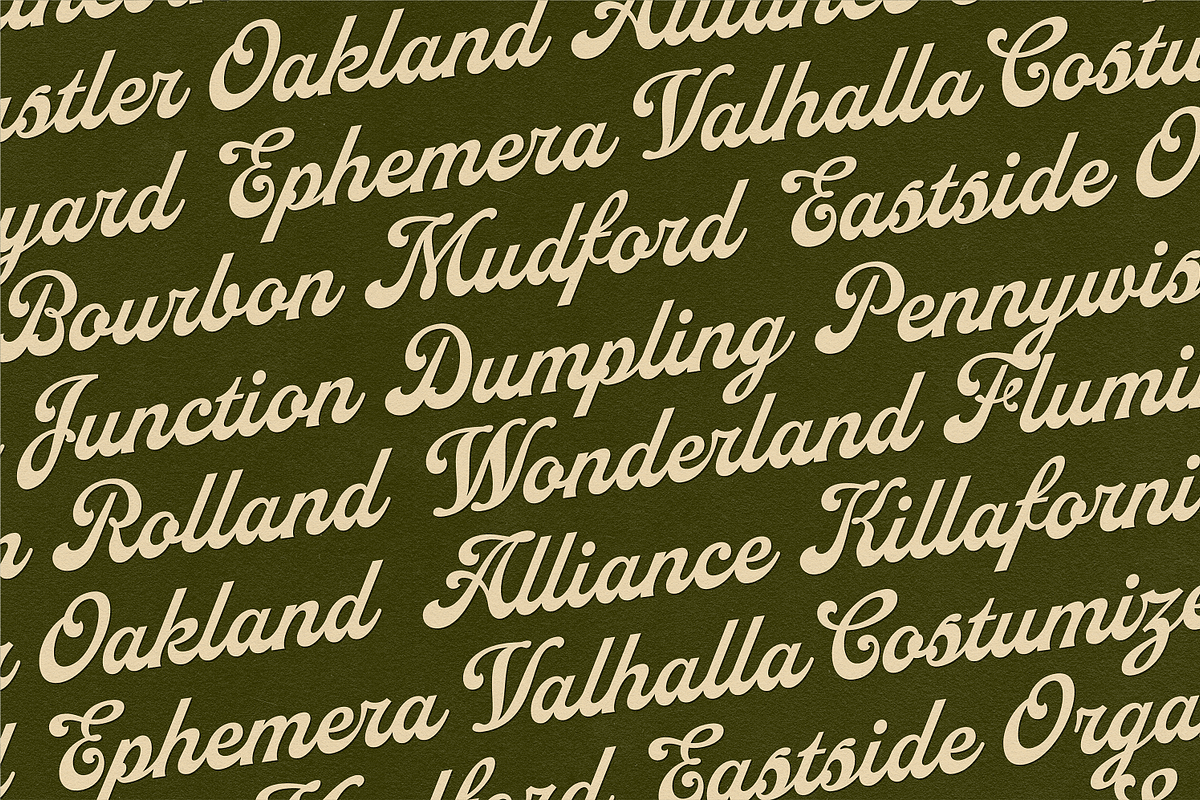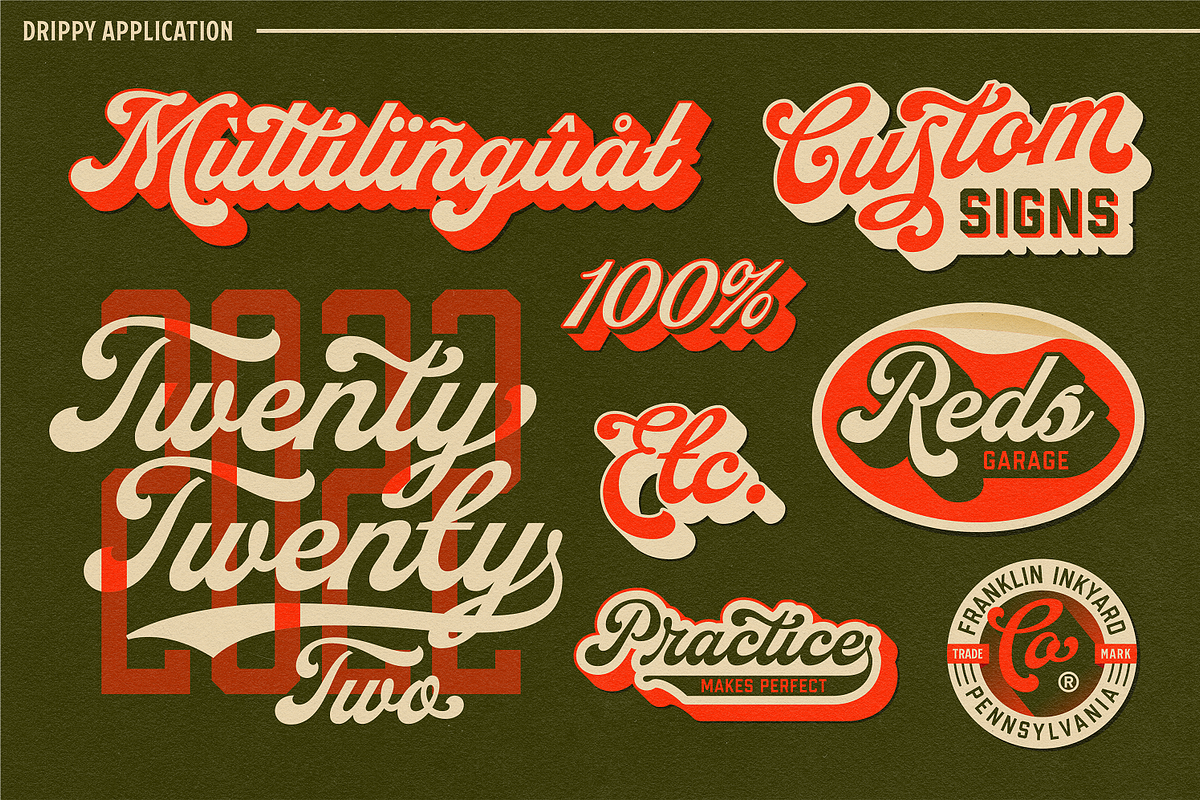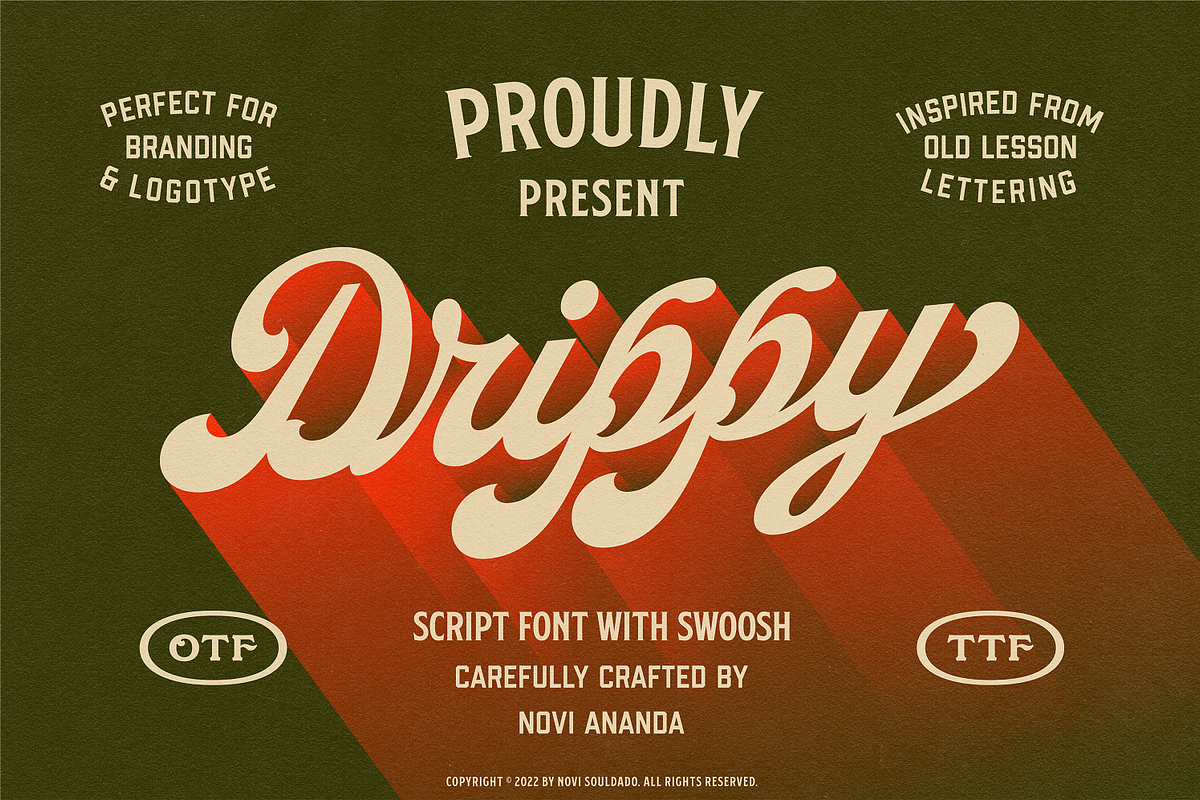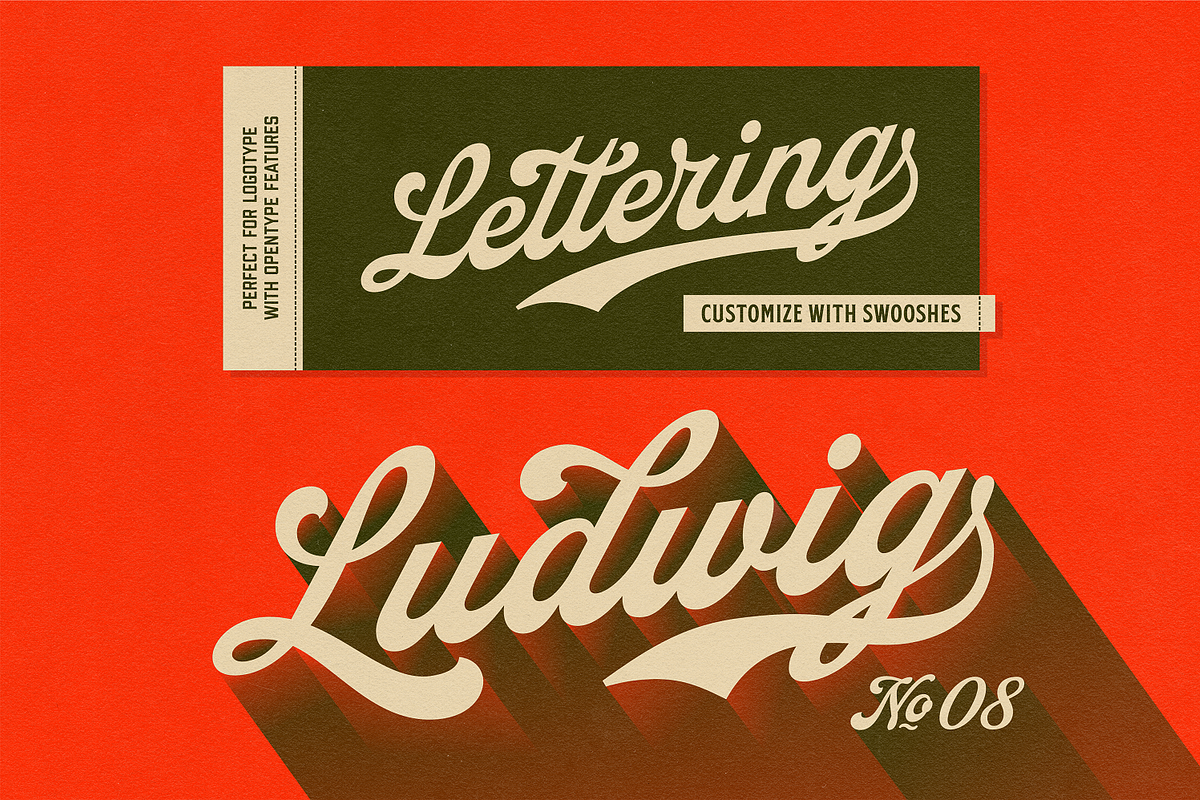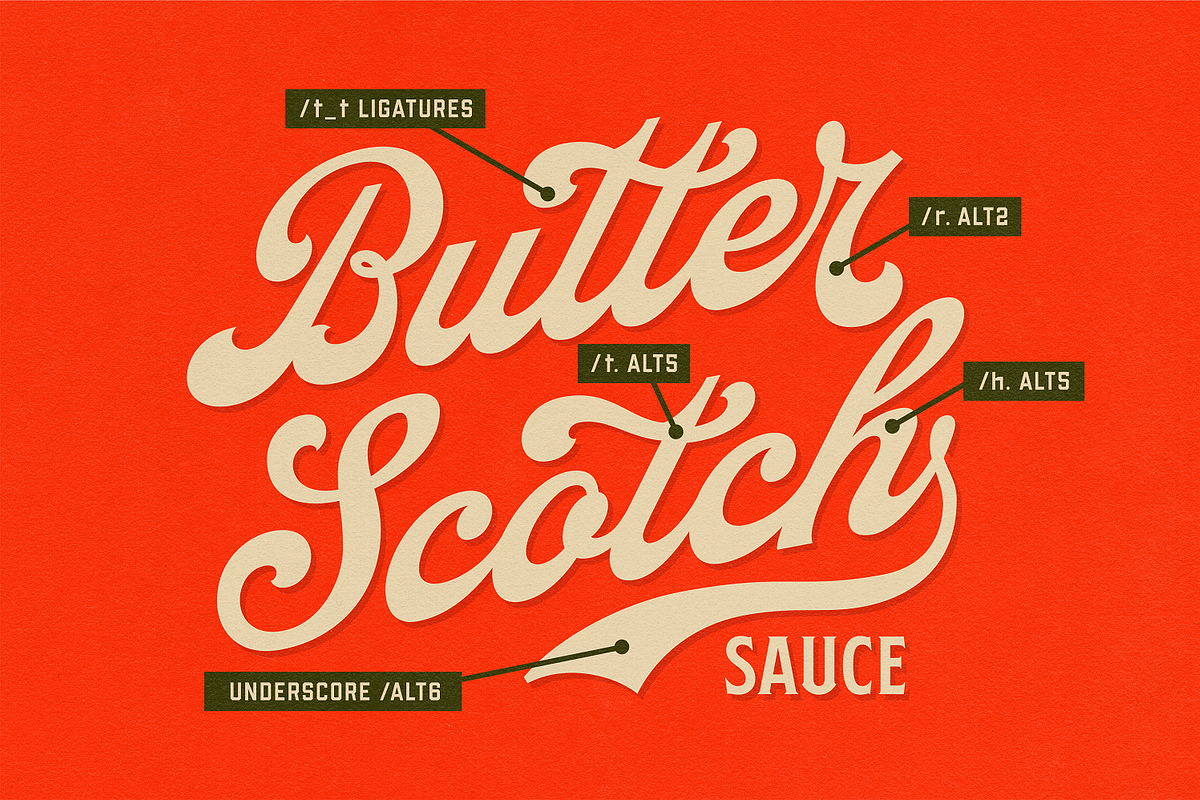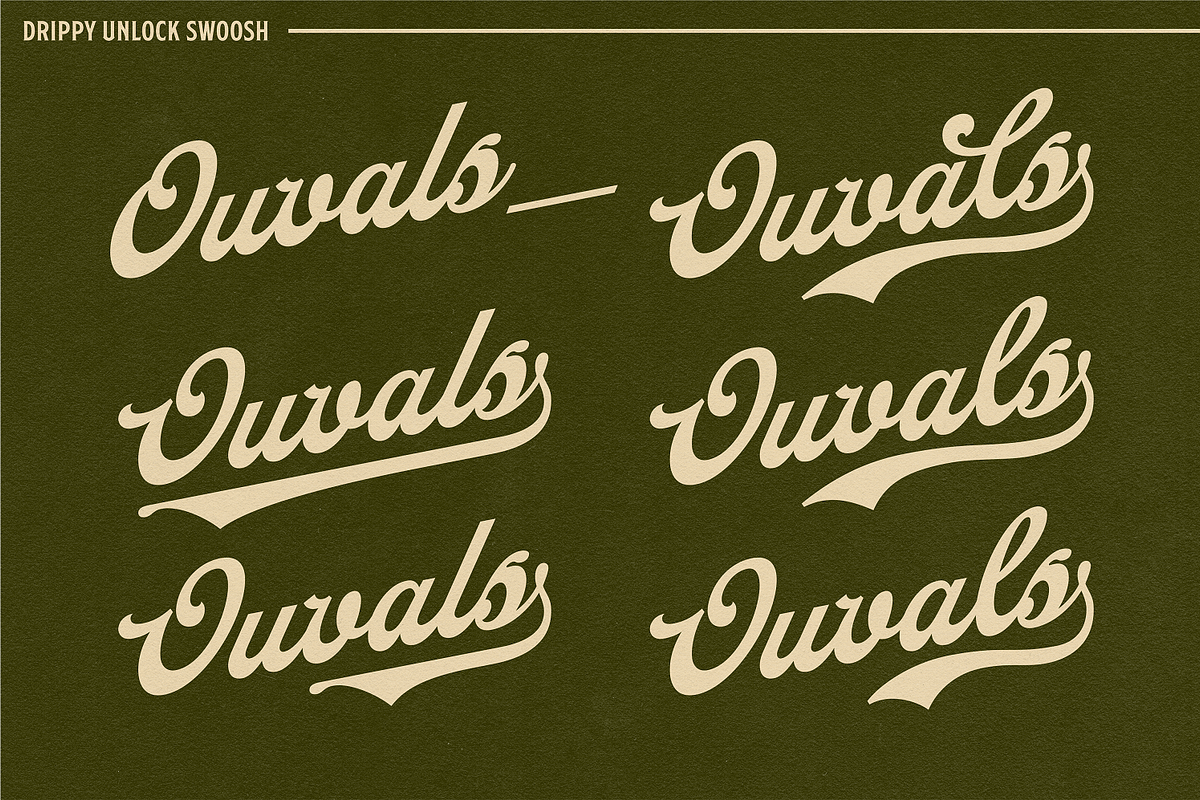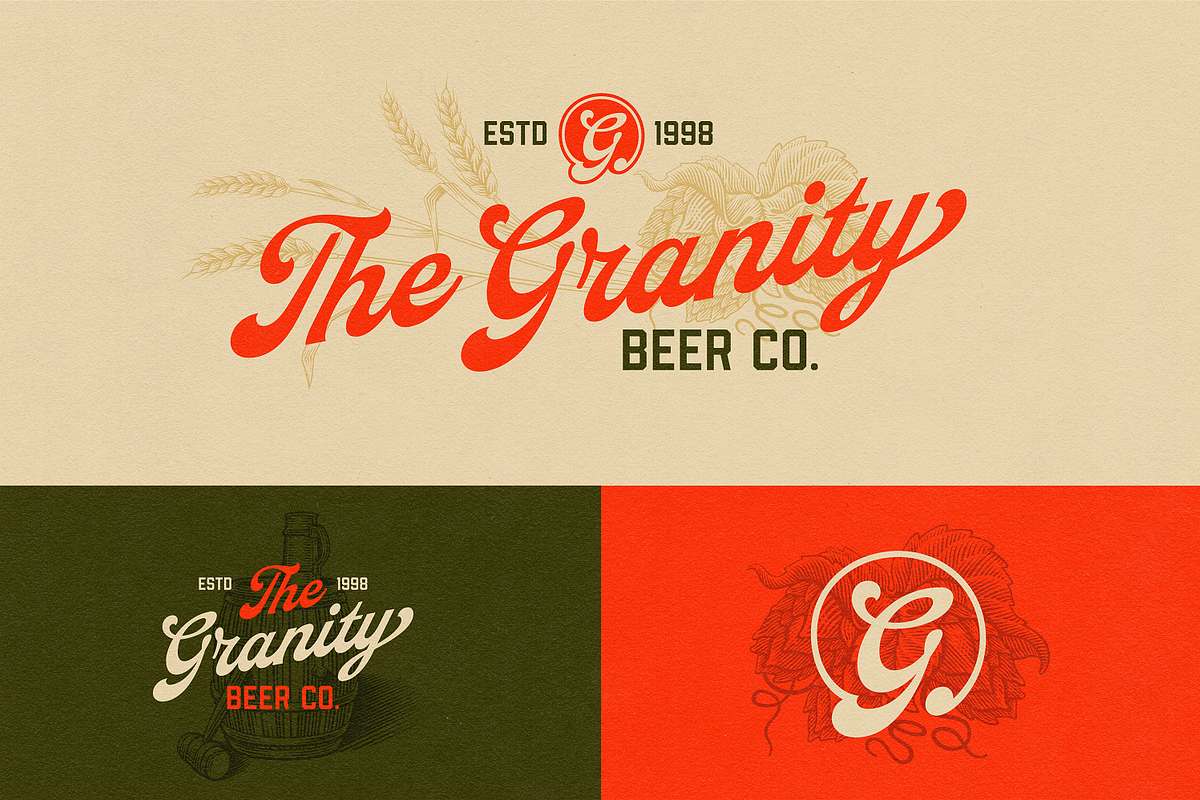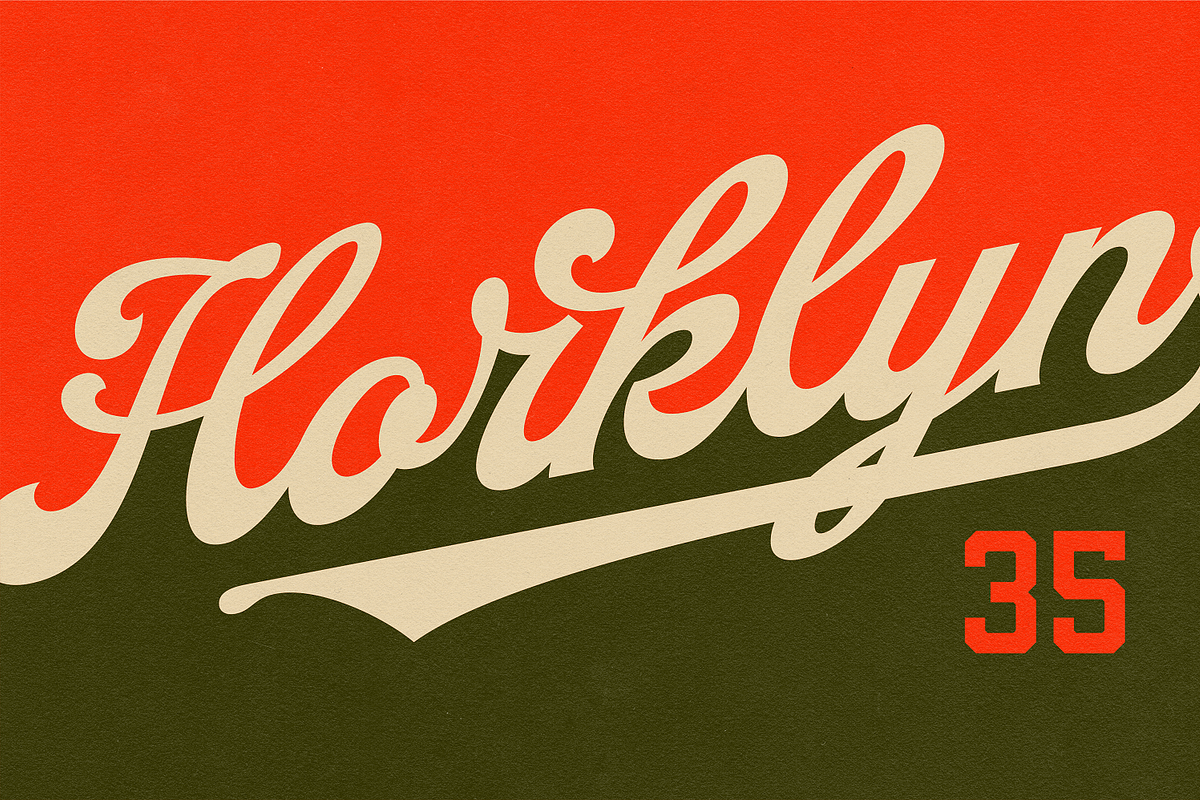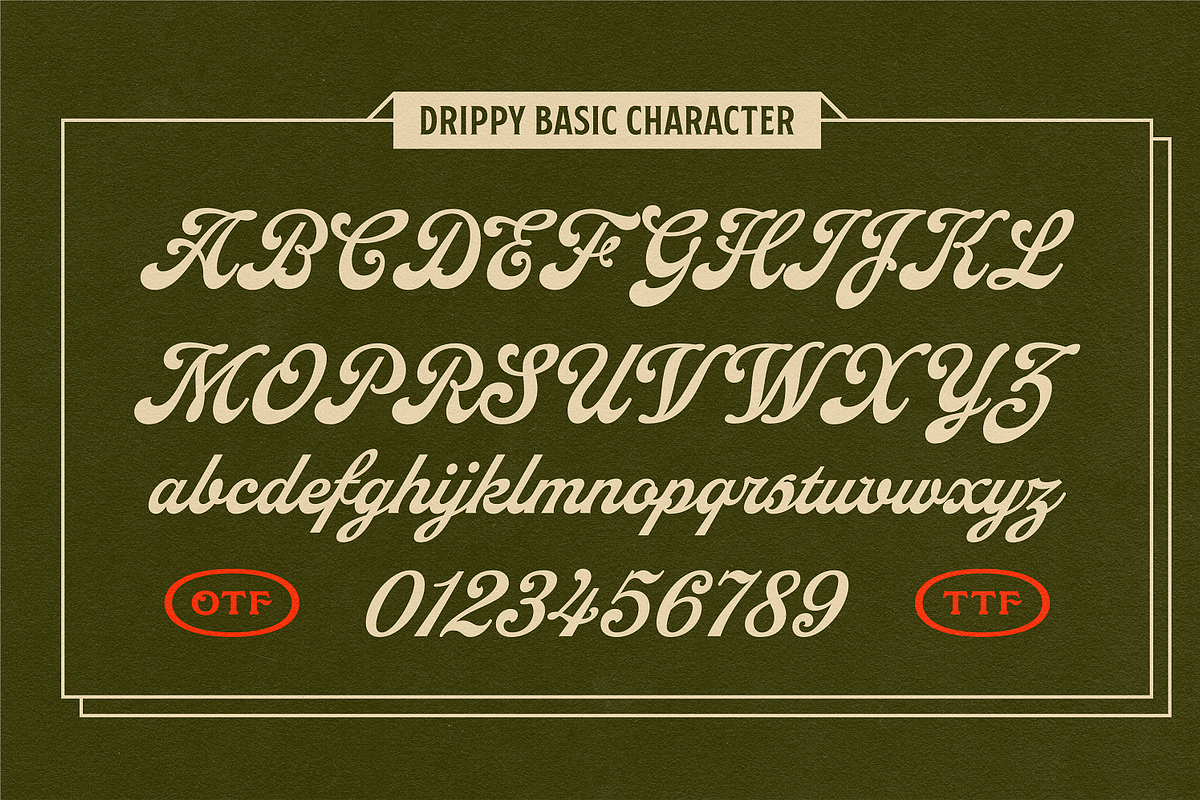
NS Drippy
Starting from the archive of vintage educational lettering books, posters, and decorative stuff of visual trends back in the day, Drippy was born based on that particular reference.
To fill the gap between classic historical ambiance and the pop modern retro vibes.
The swashy touch on each letter is tailored to make Drippy more remarkable in the industry. Stand out from the crowd, and be the best version of your vision statement.
Undoubtedly a perfect pair for your logotype, branding project, label design, sign painting, and a very wide of advertising needs.